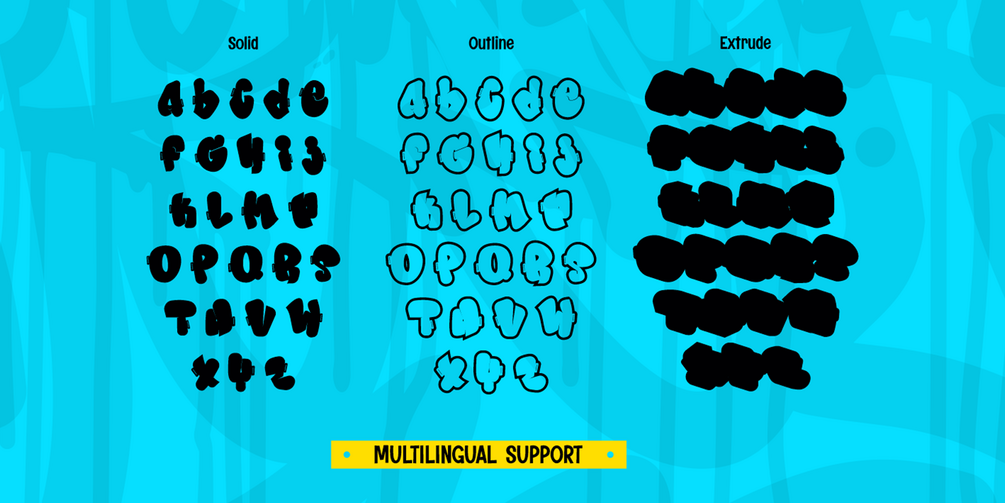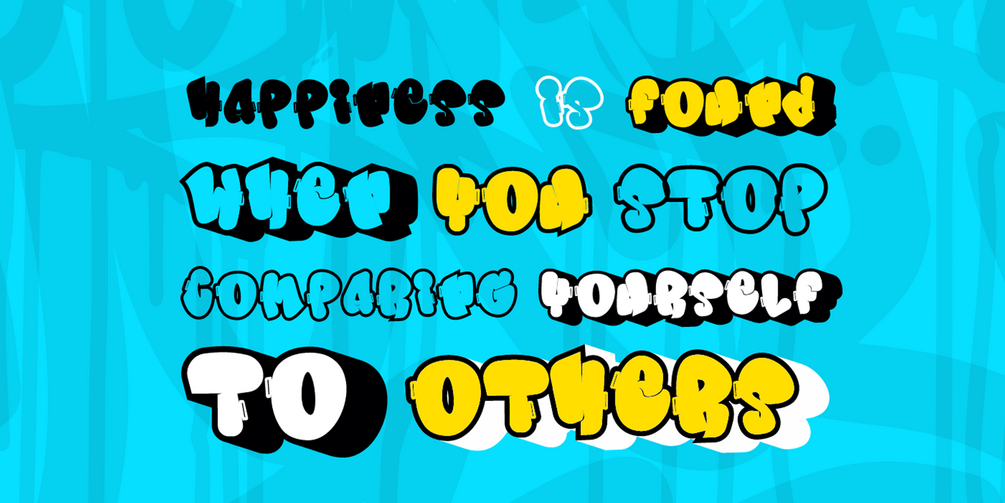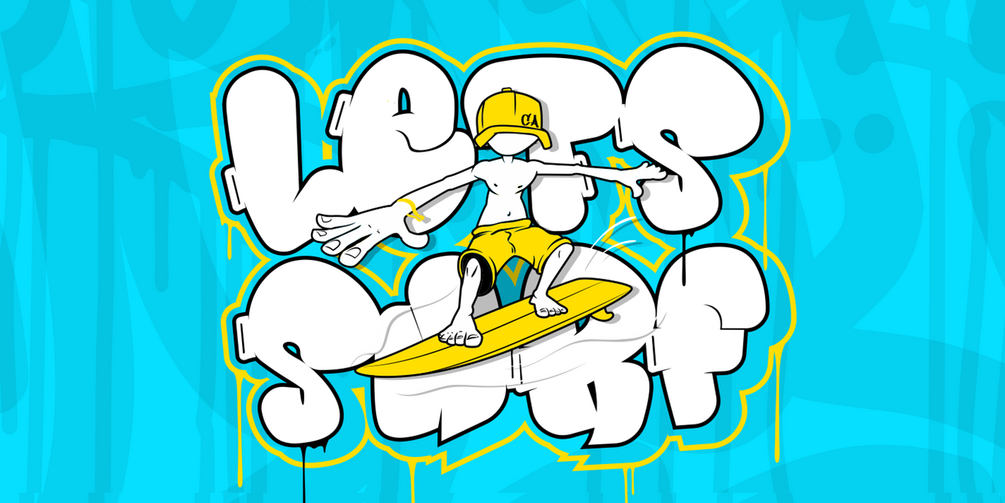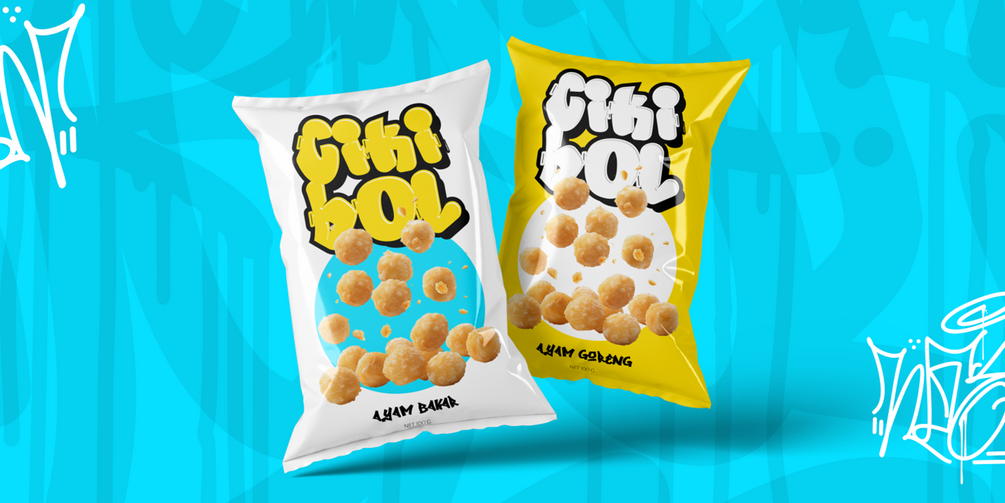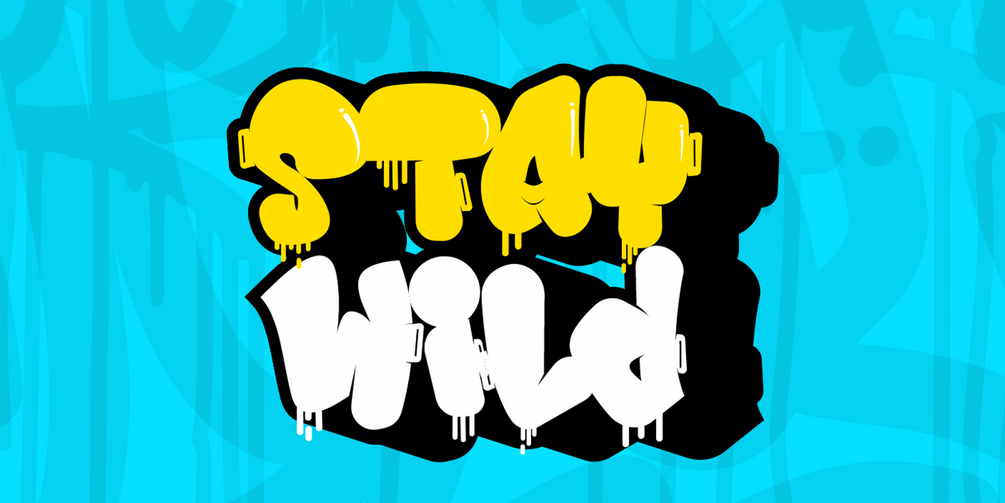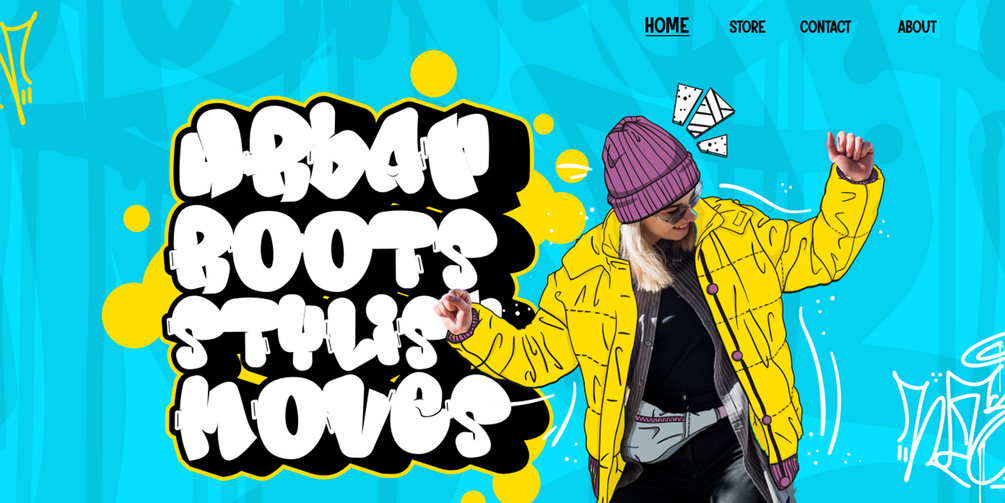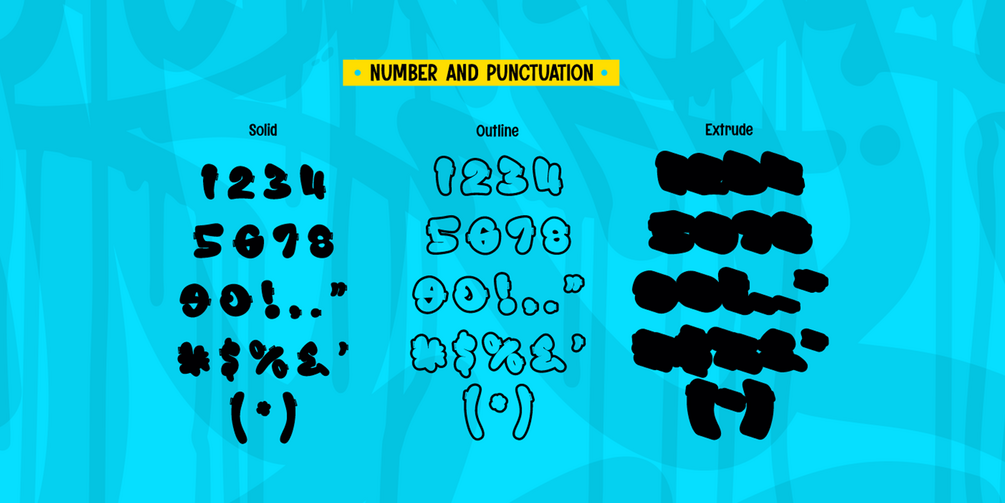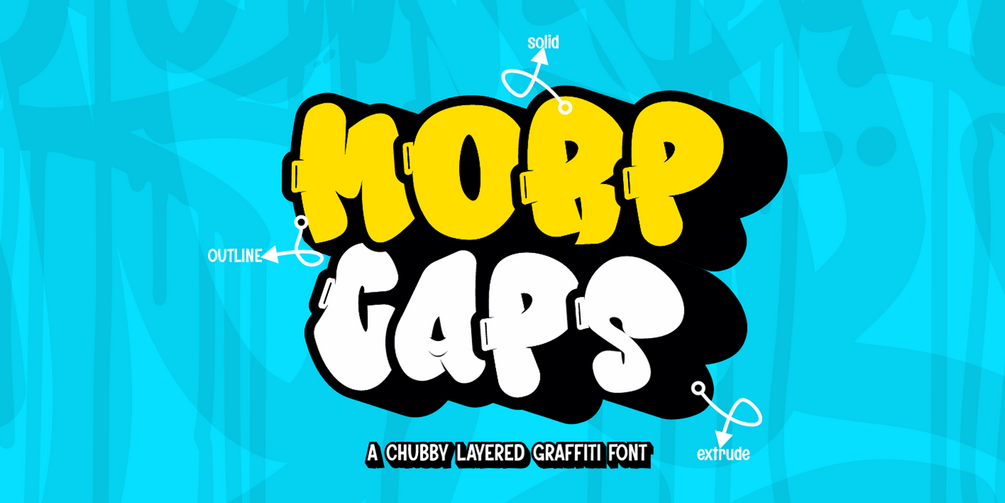
Morp Caps is a chubby and bold 3D layered graffiti font that brings a fun and energetic street-style vibe to your designs. With its three distinct styles—Solid, Outline, and Extrude, this font allows for creative layering and dynamic effects, making your text pop with depth and dimension.
Perfect for streetwear branding, hip-hop posters, urban artwork, album covers, stickers, gaming graphics, and more, Morp Caps combines graffiti culture with a playful yet powerful look. Whether you're aiming for a bold statement or a vibrant street aesthetic, this font delivers an eye-catching and rebellious style
• Versatile for branding, headline, or printing product